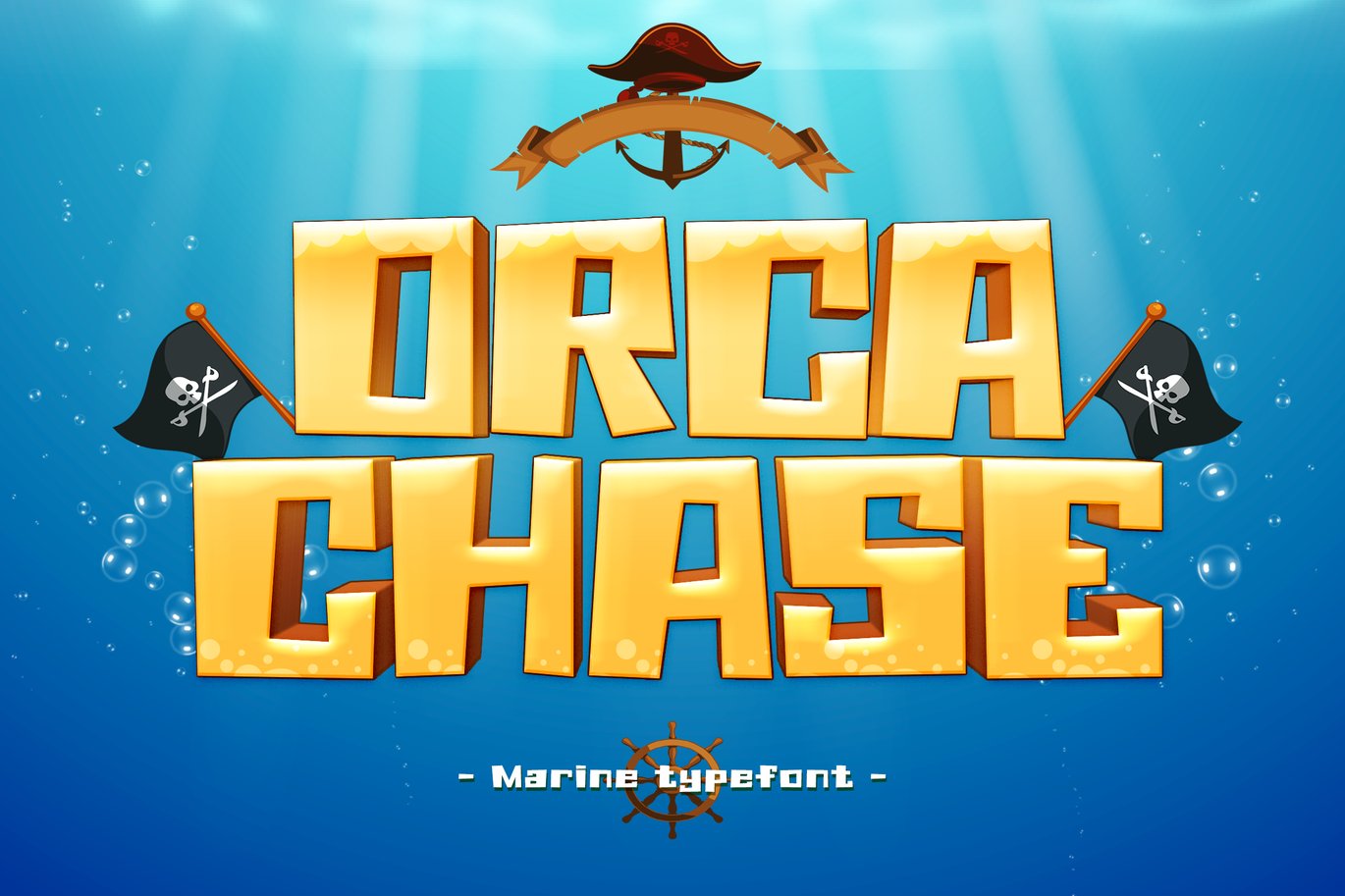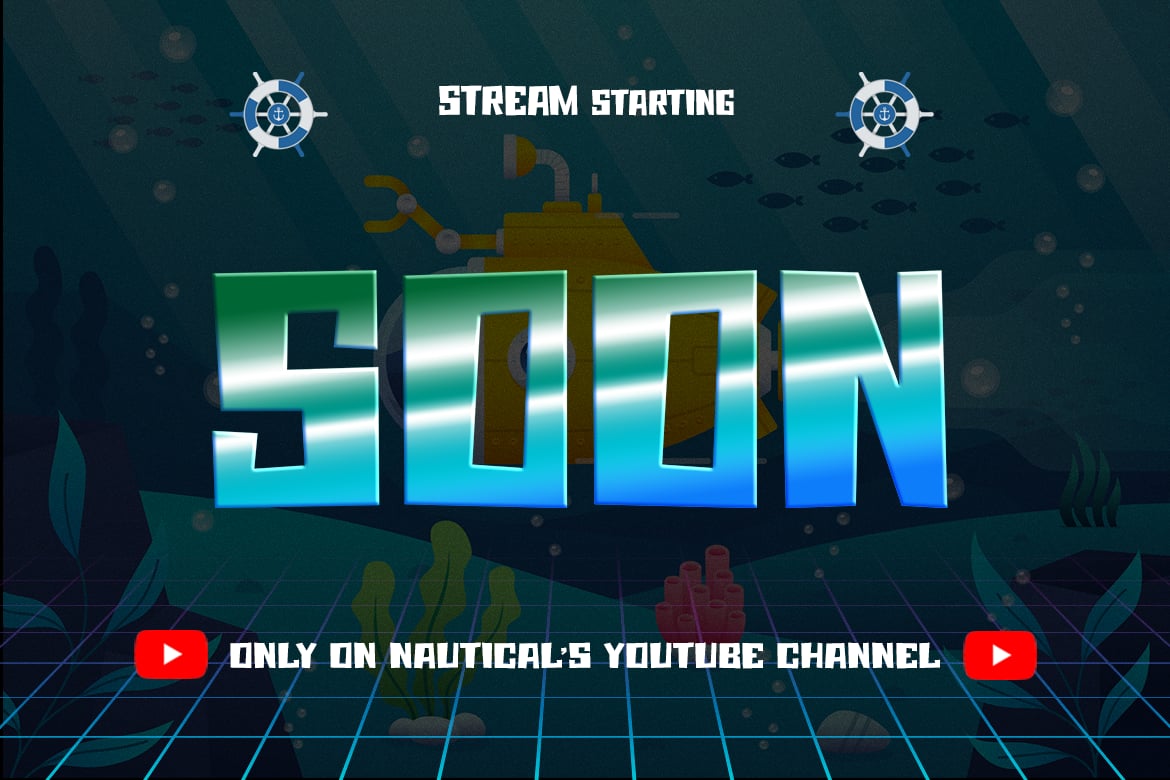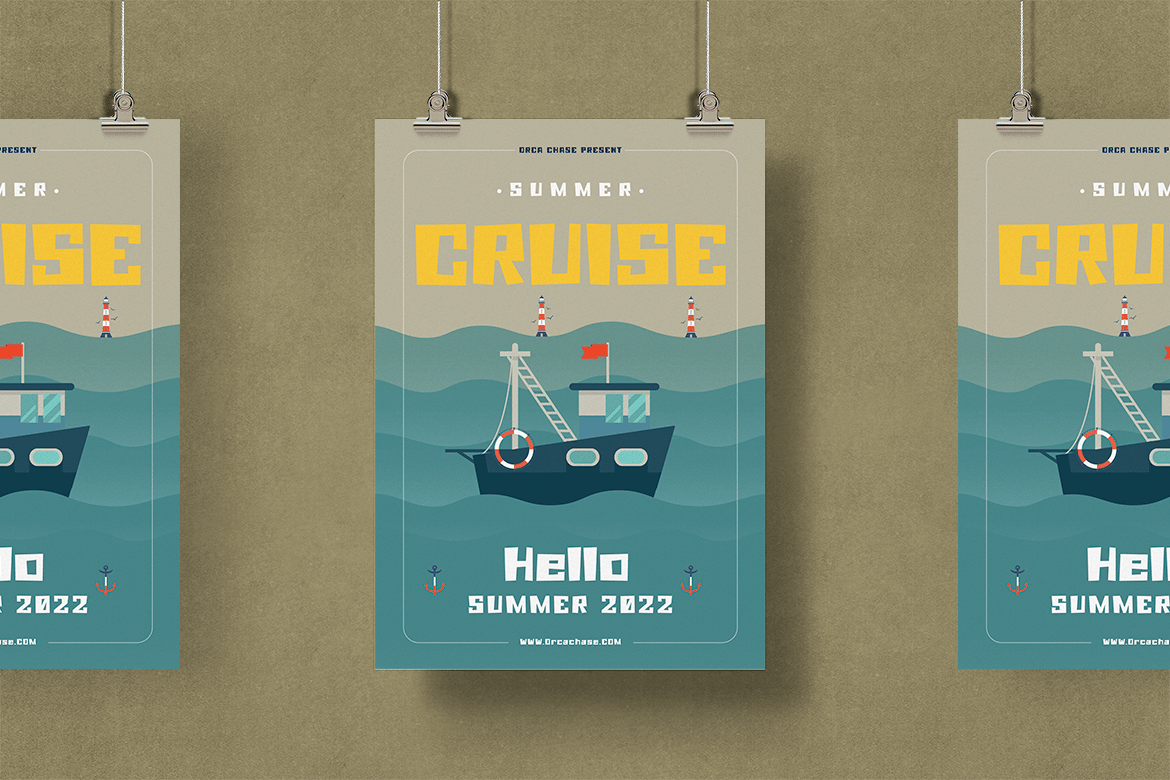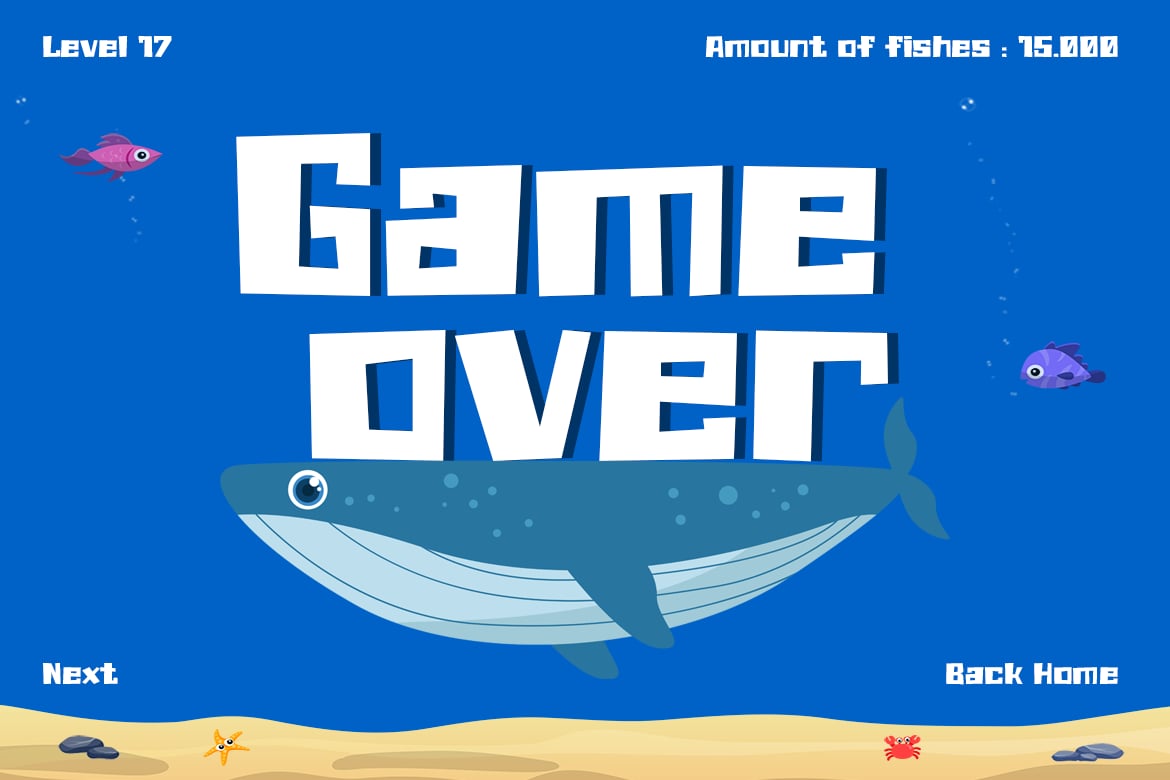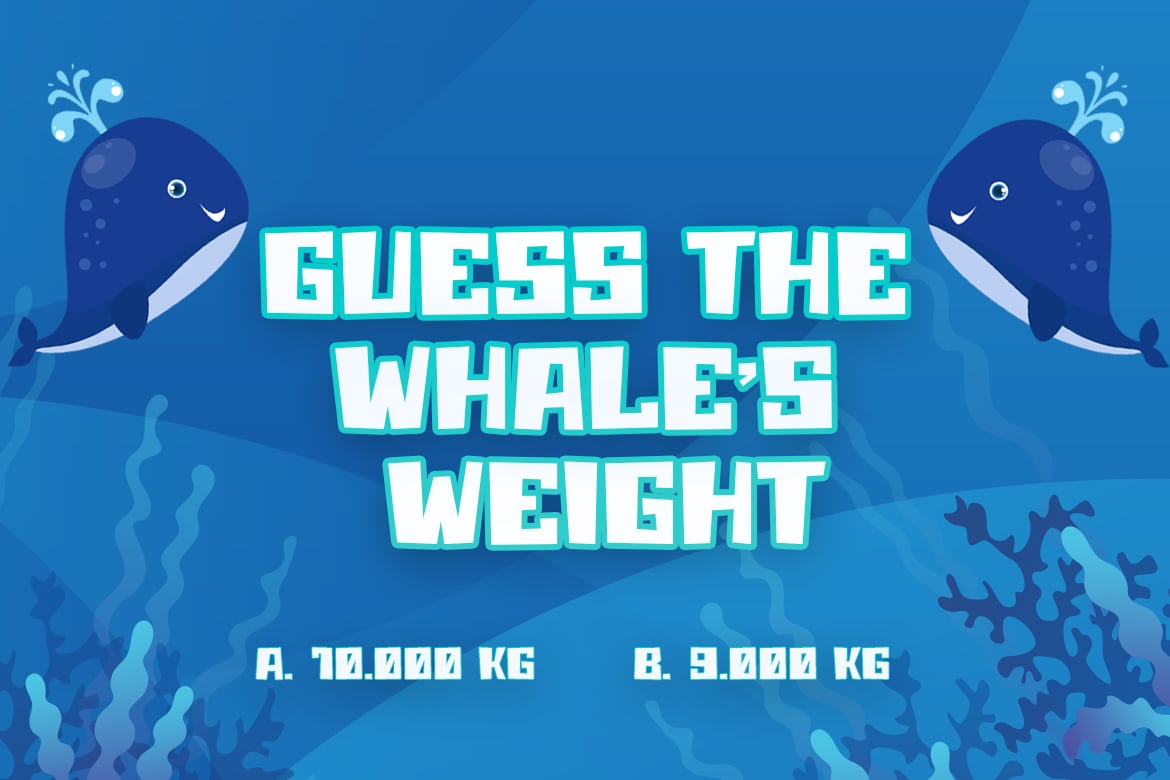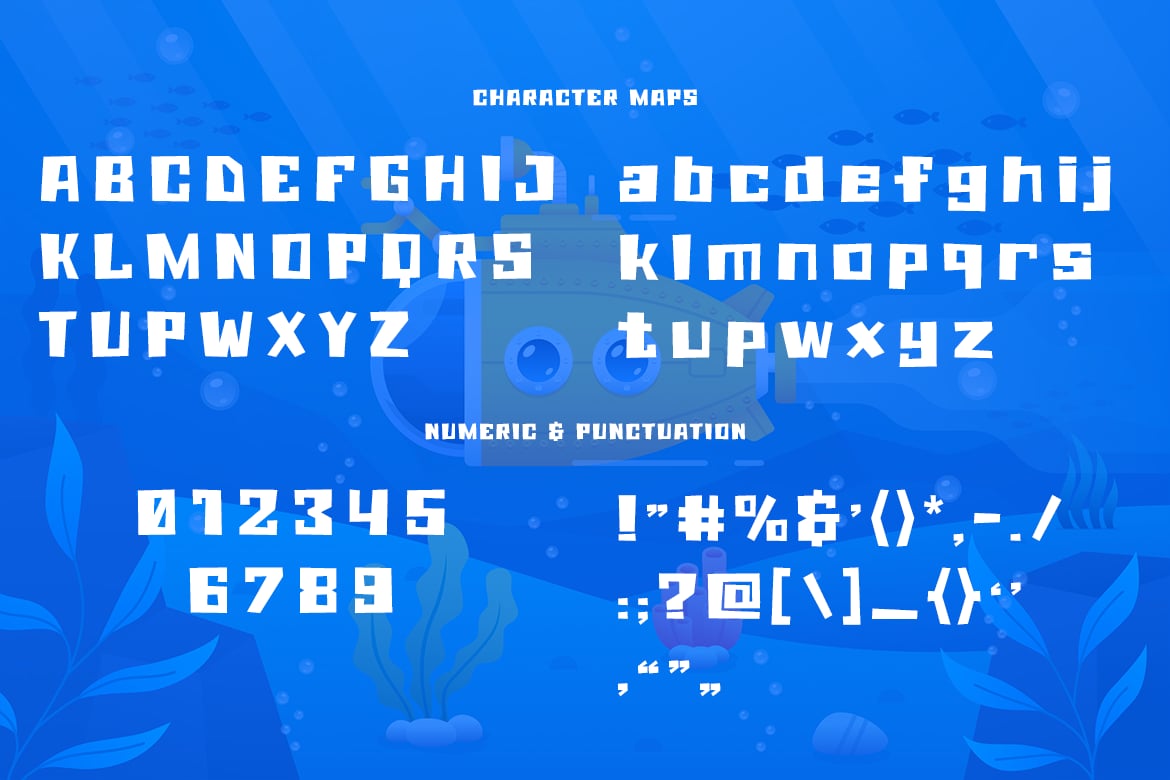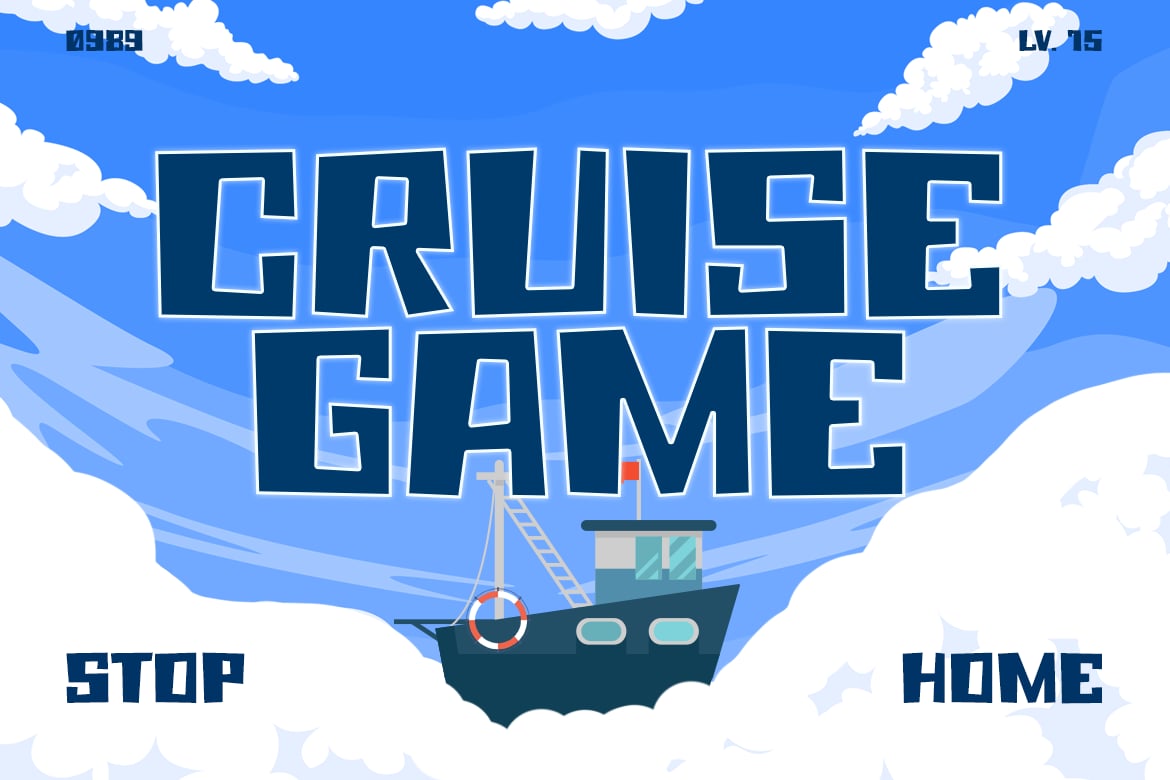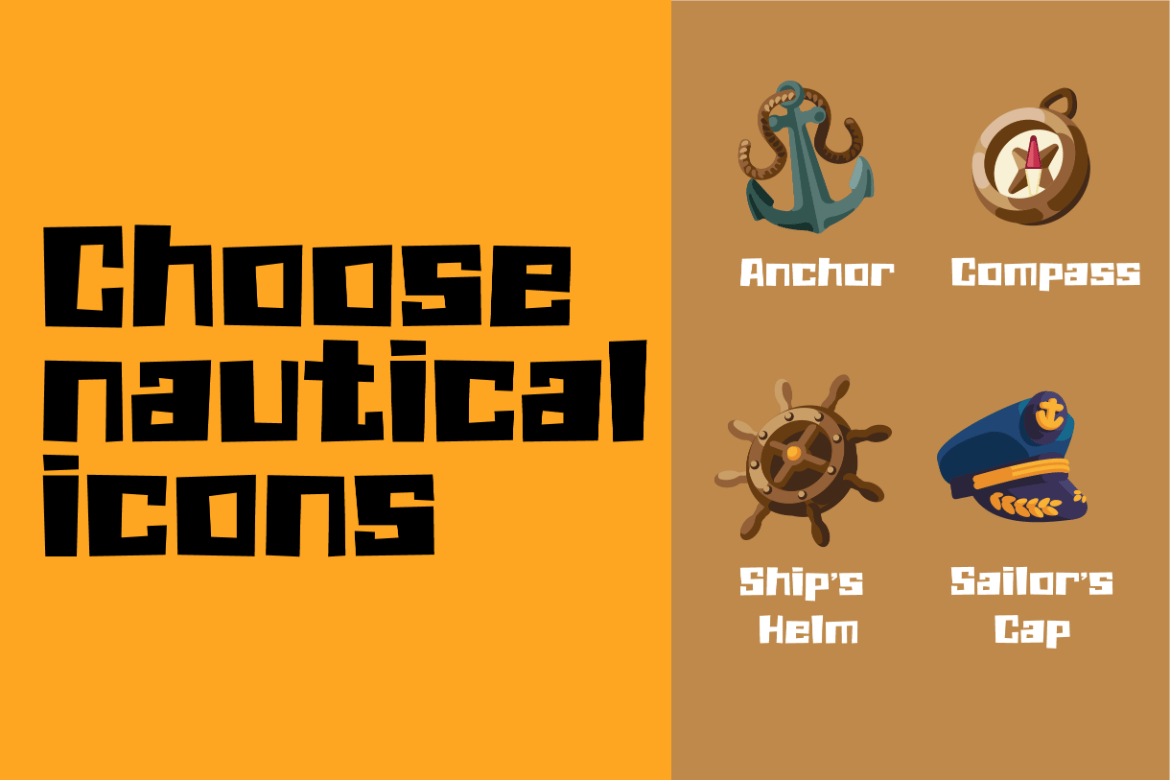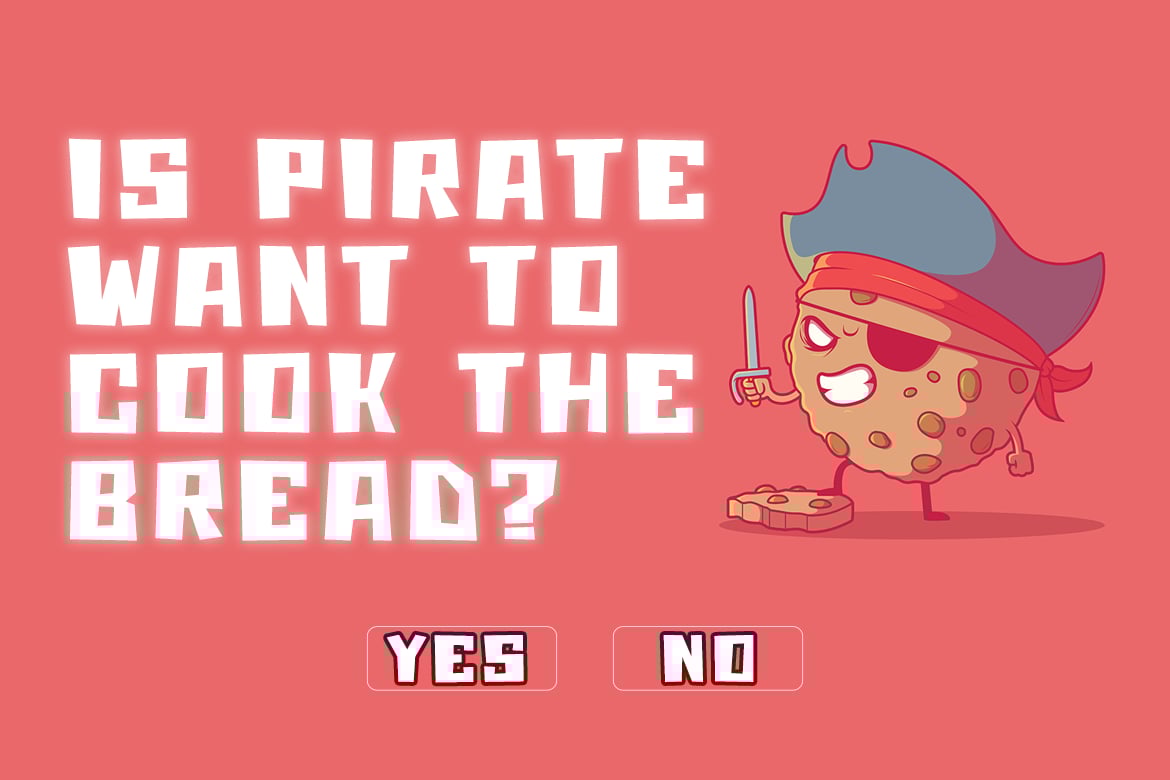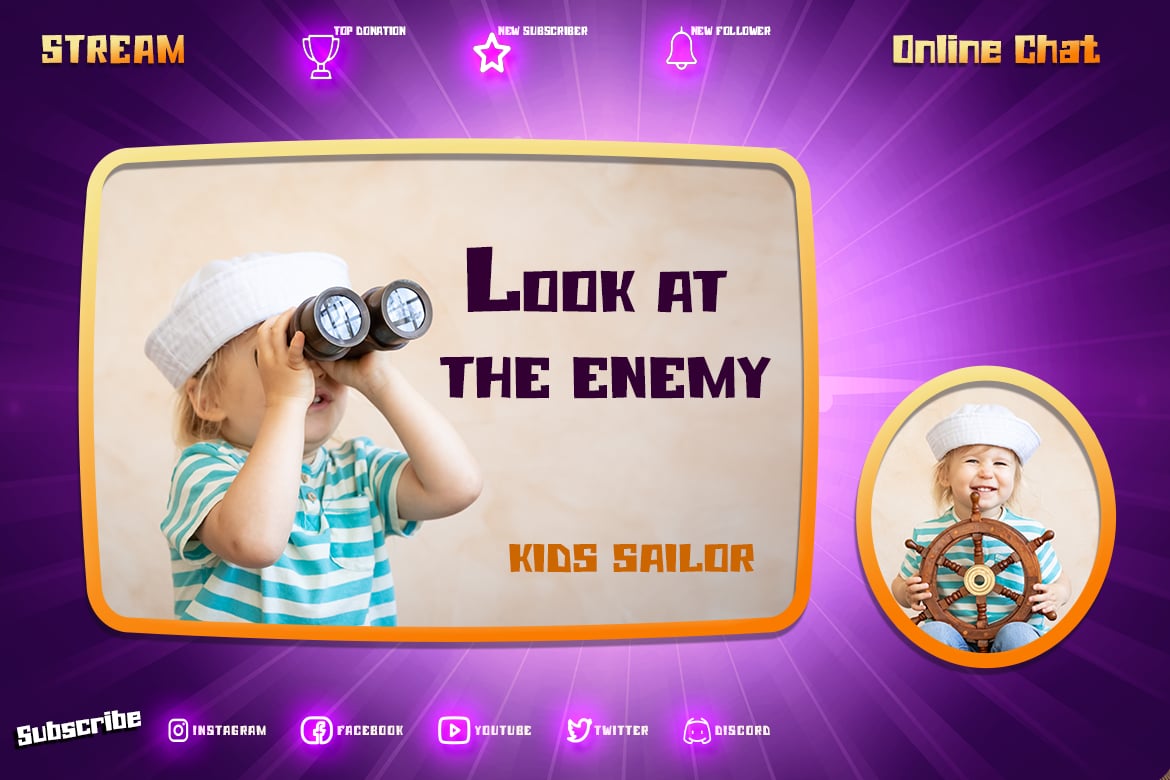
Orca Chase – Gaming Font
World of gaming is what Orca Chase is all about. The bouncy baseline with square-ish shape will looks perfect on the gaming preview.
Suit perfectly for nautical online games, teens event poster, school supplies font, poster, movie title, youtube covers, youtube thumbnails, social media page covers and so on…